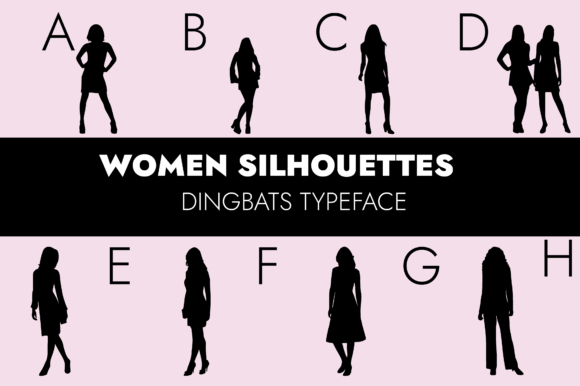
Journey into the realm of creativity with Women Silhouettes Font, a remarkable dingbats font that transforms your imagination into captivating visuals. This extraordinary font family, crafted by Minimalistartstudio, unveils a world of possibilities for designers, artists, and storytellers alike.
Unlock the power of minimalism and simplicity as you witness the magic of Women Silhouettes. With just a few keystrokes, you can conjure elegant female figures, each possessing a distinct charm and personality. This font is not just a collection of letters and numbers; it's a gateway to a universe of artistic expression.
Picture this: a fashion designer effortlessly sketching out silhouettes of models on the runway, capturing their grace and poise with every stroke. An illustrator bringing to life a captivating storybook filled with enchanting female characters, their every movement imbued with emotion and allure. A graphic designer creating eye-catching logos and branding elements that exude a uniquely feminine touch.
Women Silhouettes Font is your secret weapon to unleash your creative genius. Its versatility knows no bounds, allowing you to craft stunning designs for a multitude of projects. From elegant wedding invitations to captivating social media graphics, from whimsical greeting cards to thought-provoking posters, this font has the power to transform your ideas into visual masterpieces.
Embrace the simplicity yet profound impact of Women Silhouettes. Let your imagination soar as you explore the endless possibilities it presents. Dive into a world where creativity reigns supreme, where every letter and number holds the key to unlocking a world of beauty and expression.
Don't settle for ordinary fonts; choose Women Silhouettes and unlock the extraordinary. Embark on a creative journey that will leave you inspired, fulfilled, and ready to take your designs to new heights.